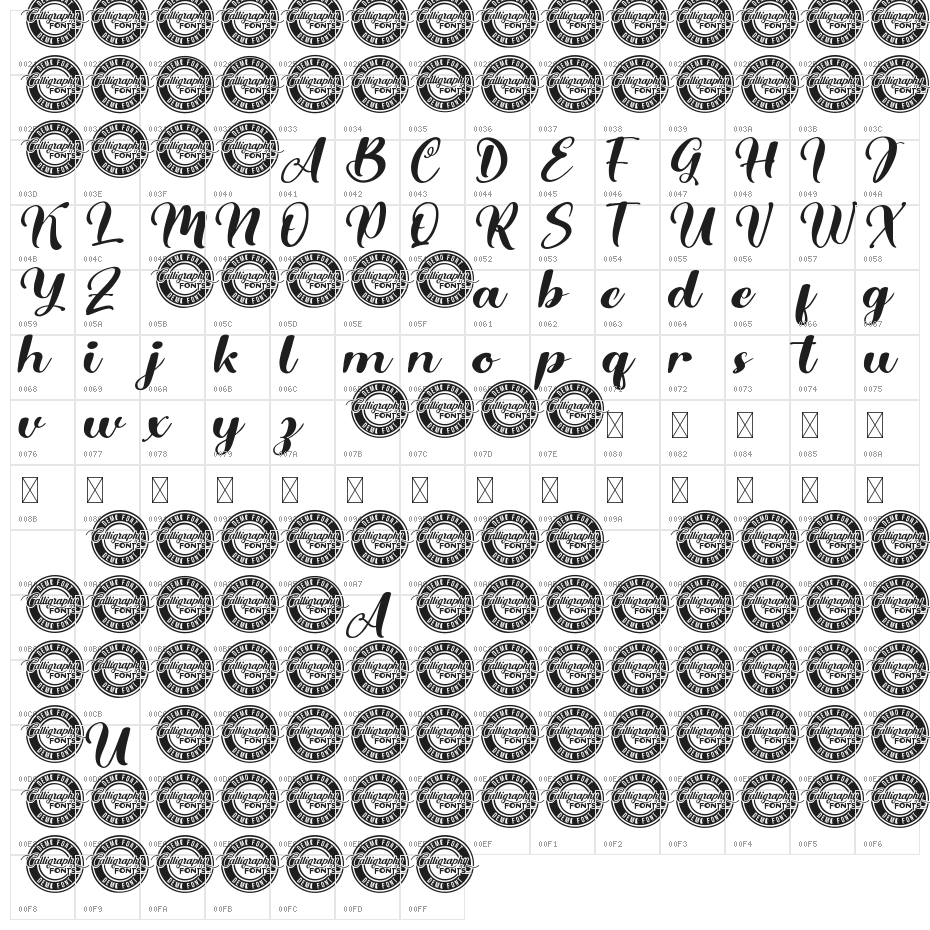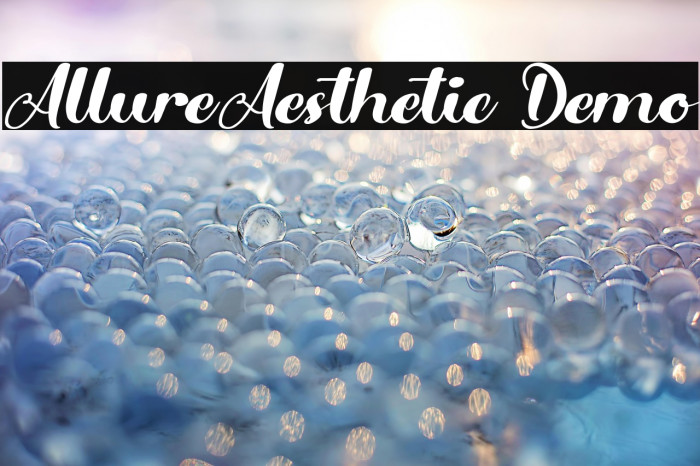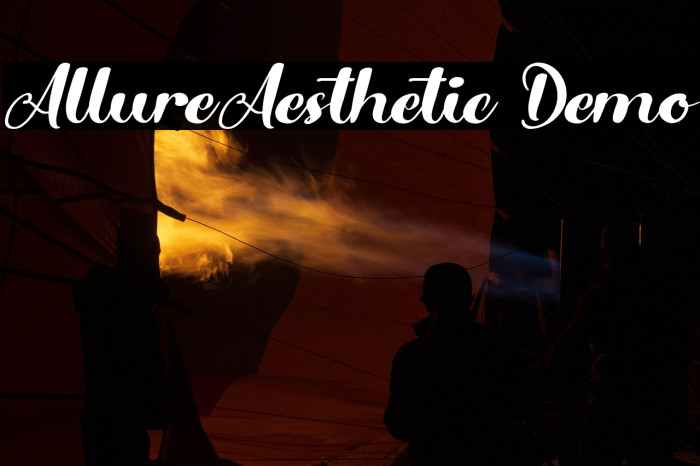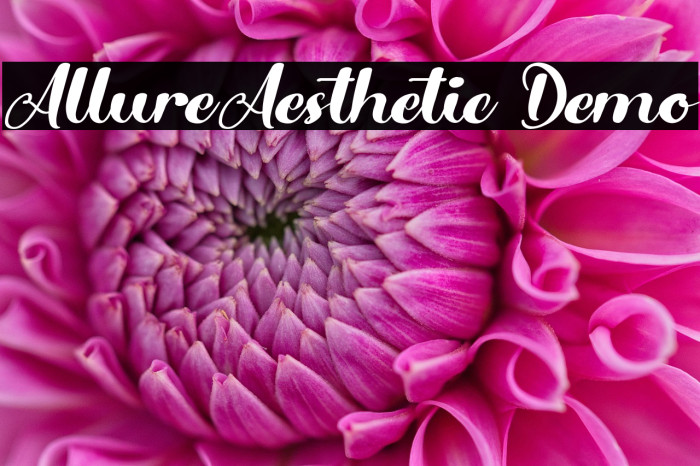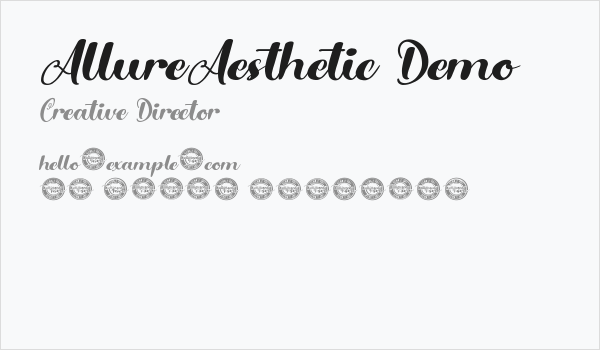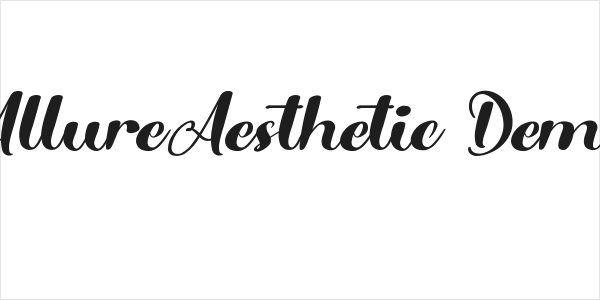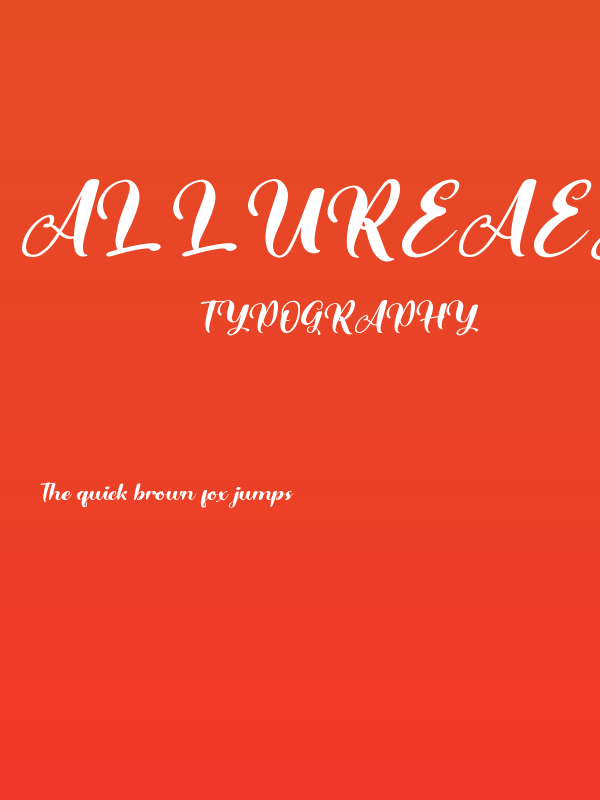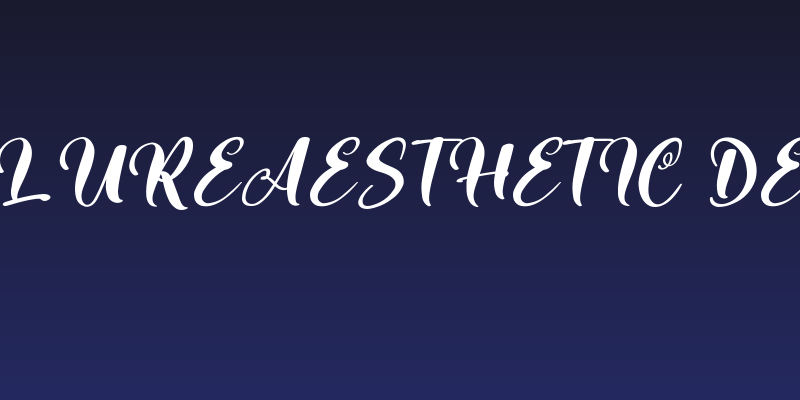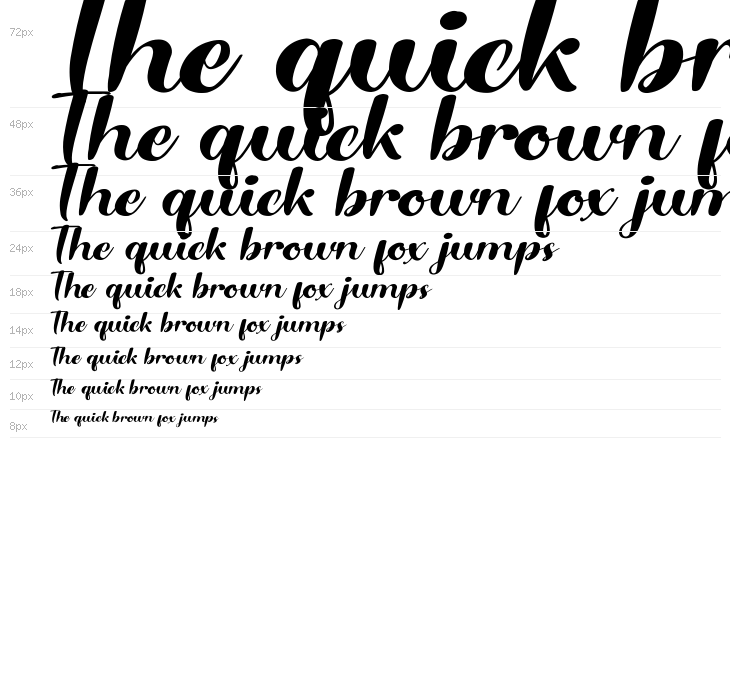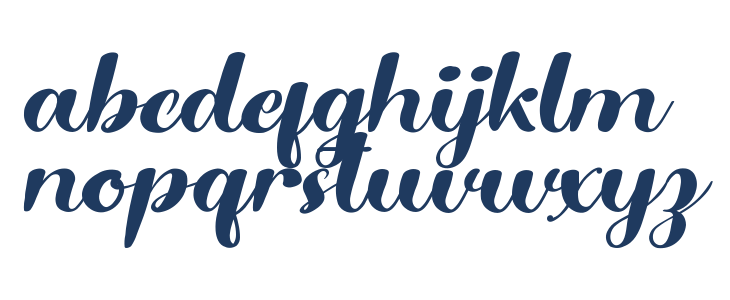
AllureAesthetic Demo Font
AllureAesthetic Demo Description
This font exhibits a flowing, cursive style with elegant, sweeping strokes that convey a sense of sophistication and grace. The uppercase letters are bold and prominent, featuring intricate loops and flourishes that add a decorative touch. The lowercase letters maintain a consistent flow, with smooth connections between characters, enhancing readability while preserving the artistic flair. The numerals are styled to match the overall aesthetic, with curved lines and a slightly playful appearance. Special characters are designed with the same attention to detail, ensuring a cohesive look across all elements. This font is ideal for projects that require a touch of elegance and creativity.